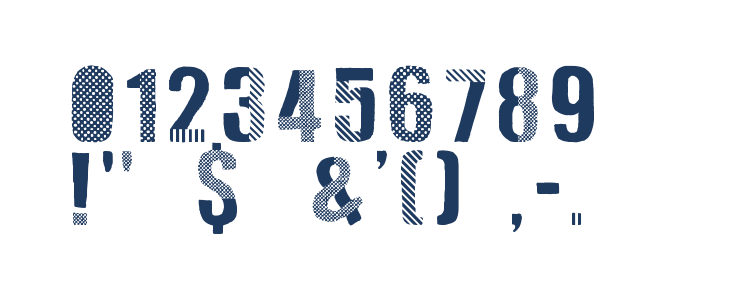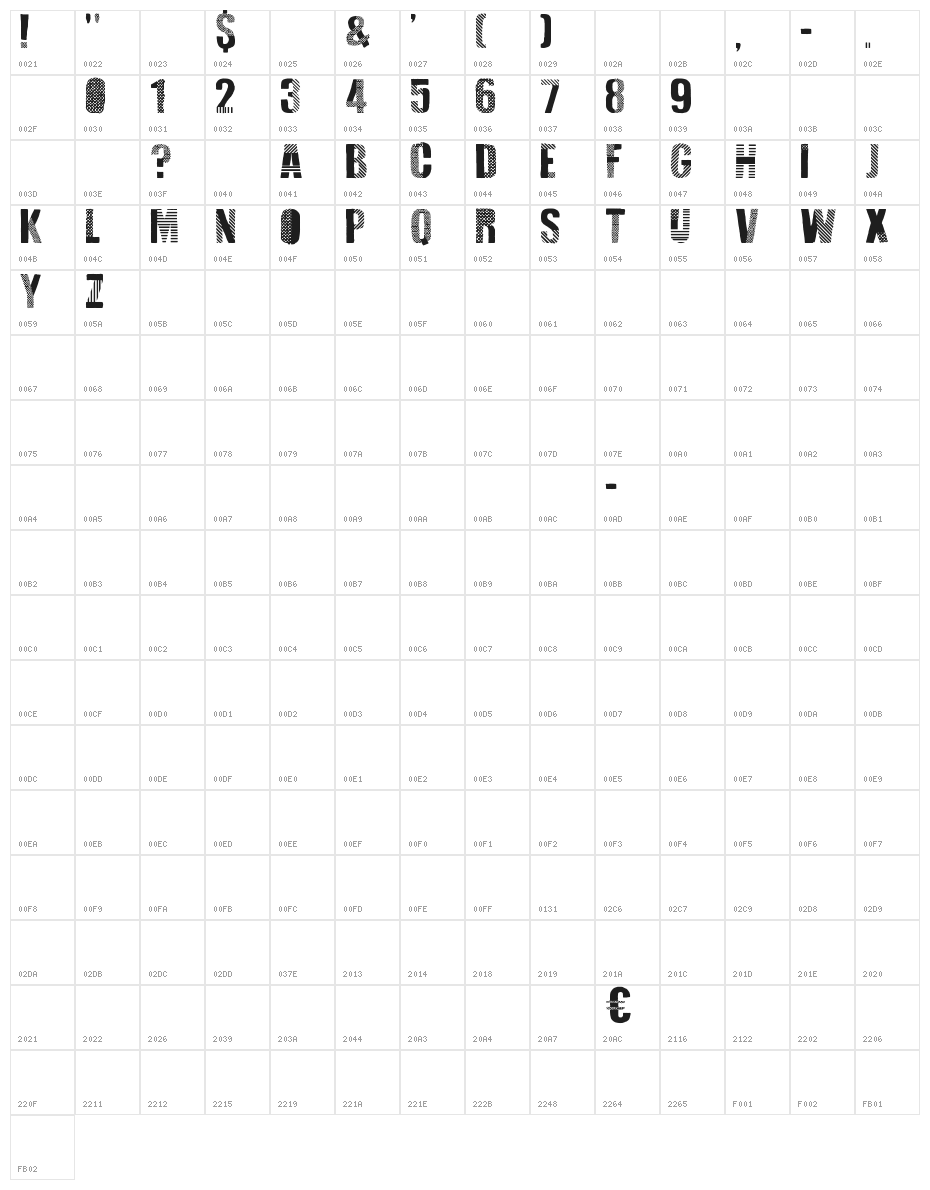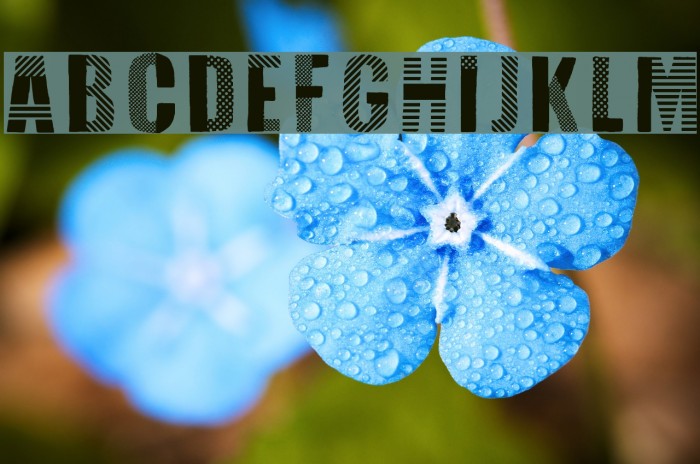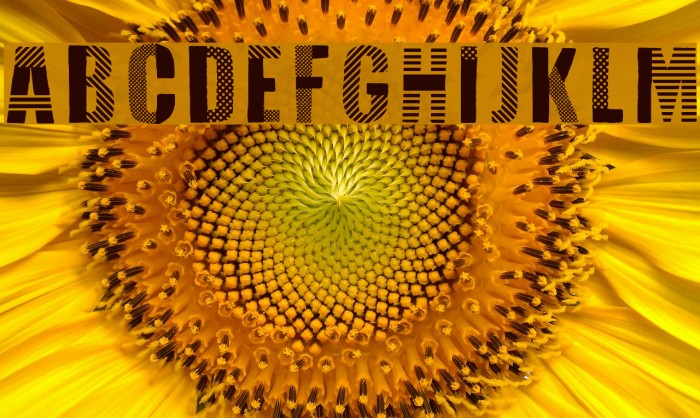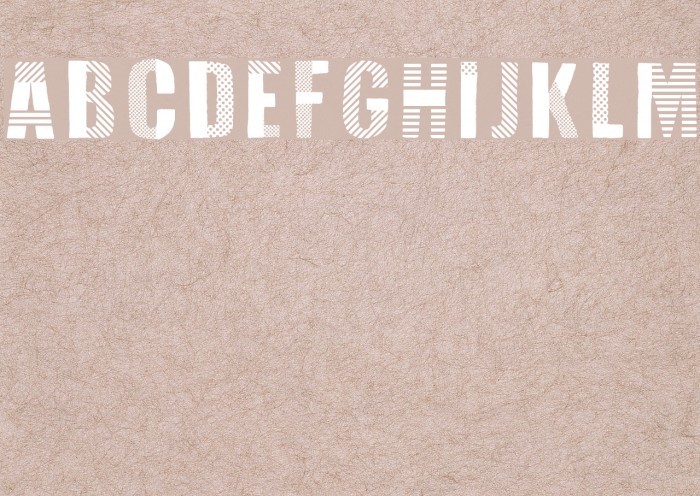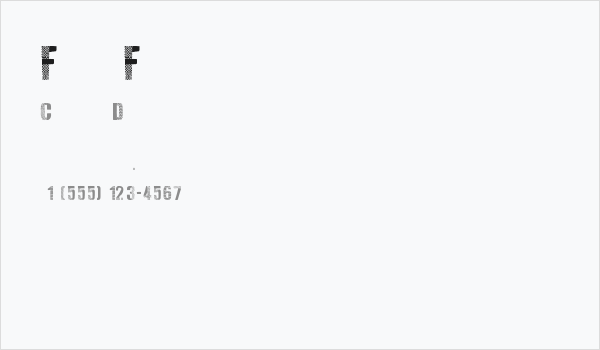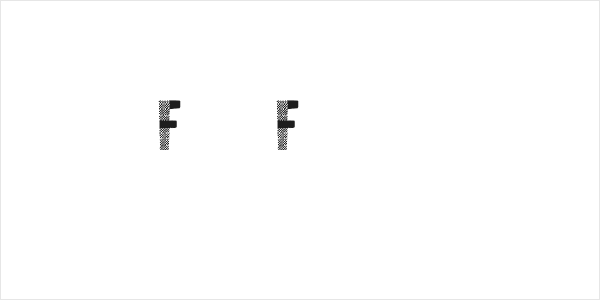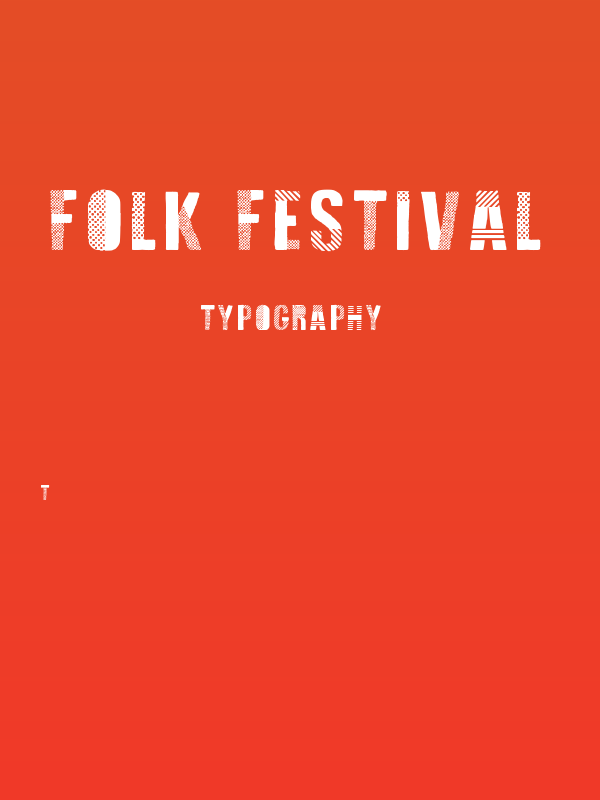
Folk Festival Font
Folk Festival Description
This font features a bold, decorative style with a unique textured pattern within each character. The uppercase letters are designed with a mix of solid and striped or dotted patterns, creating a visually striking effect. The numbers and special characters follow the same design principle, ensuring consistency across all glyphs. The font's playful and artistic nature makes it ideal for creative projects that require a standout typeface. Its boldness and decorative elements suggest a sense of fun and celebration, making it suitable for event posters, festival branding, or any design that aims to capture attention with a lively and dynamic aesthetic.
| Proposed Projects | Event posters, festival branding, artistic projects, eye-catching headlines. |